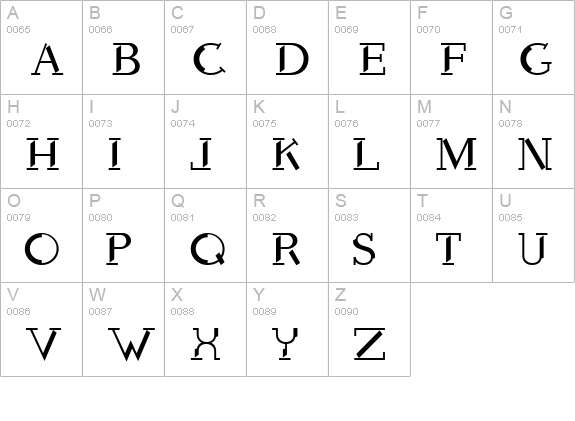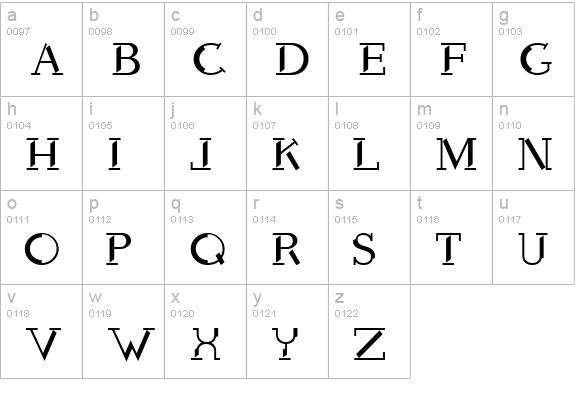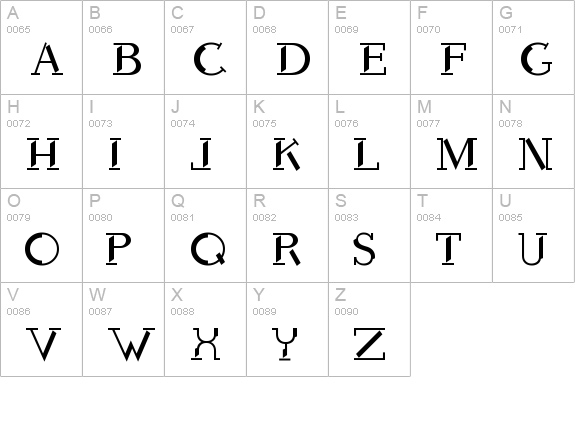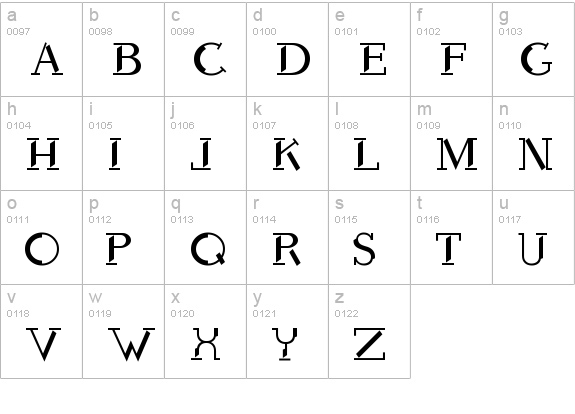
Introducing Voodoo Dolls, a captivating and enigmatic font that will cast an enchanting spell on your designs. With its intricate and twisted letterforms, this font exudes an aura of mystery and intrigue, perfect for adding a touch of the supernatural to your projects. Voodoo Dolls is a free font that combines the elements of dark magic with a contemporary design aesthetic. Its unique and unconventional letter shapes are inspired by the mysticism and symbolism of voodoo rituals. Each character is meticulously crafted to evoke a sense of ancient wisdom and occult power. Whether you're working on a logo, a poster, or a branding project, Voodoo Dolls will bring an alluring and otherworldly quality to your designs. Its versatile nature allows it to be used for both headline and body text, making it a versatile choice for a wide range of creative applications. Best of all, Voodoo Dolls is freely available to download at FontsMarket.com. This means that you can bring its enchanting allure to your designs without any cost. The font's easy accessibility ensures that designers of all levels can harness the power of its unique aesthetic and create captivating visuals. Embrace the mysterious and unleash the power of Voodoo Dolls font in your designs. Whether you're aiming to captivate your audience or add a touch of magic to your projects, this font will infuse your work with an undeniable charm and intrigue. Download Voodoo Dolls font for free at FontsMarket.com and embark on a journey into the captivating realm of dark enchantment.